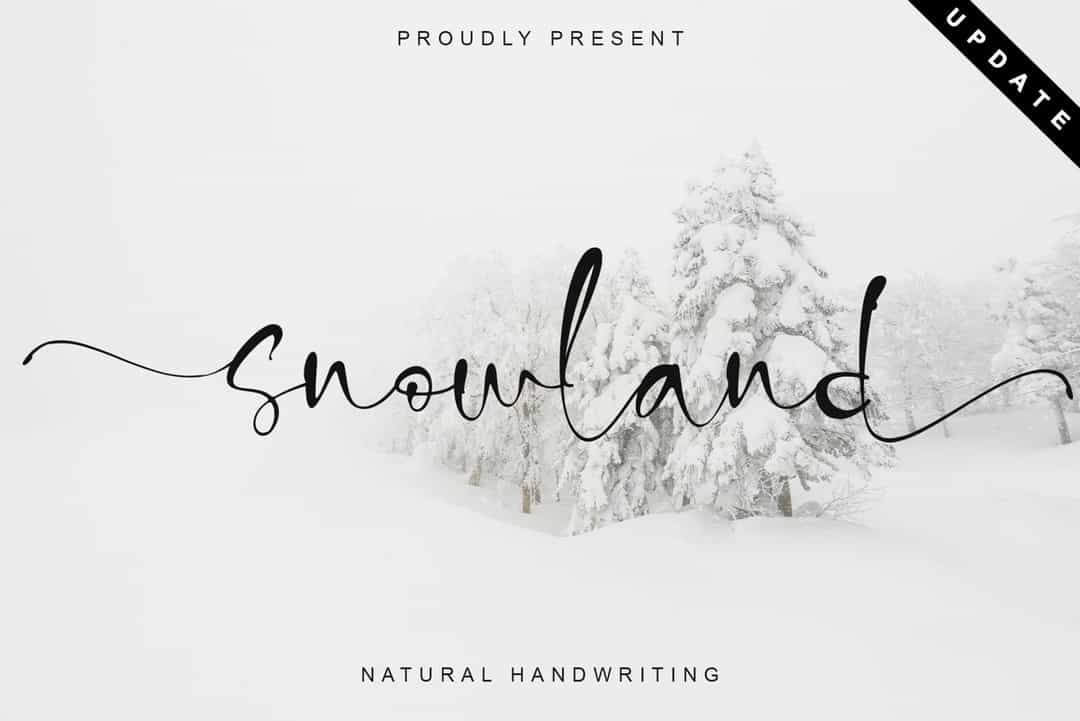
Snowland is a beautiful font that is best described as handwritten that has all its letters and special characters in the PUA encoded format. Also, its versatile baseline character makes the line smooth and elegant, while the beautiful alternatives are placed throughout the page.